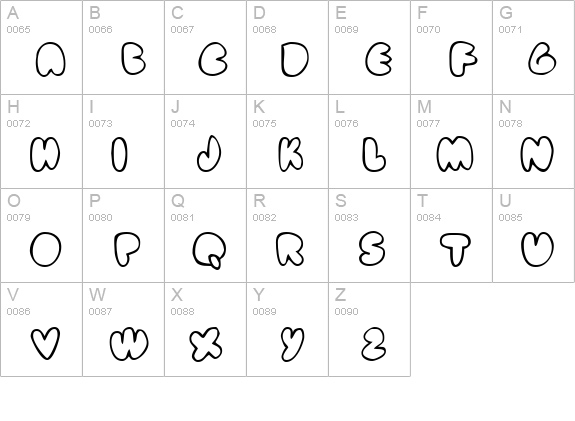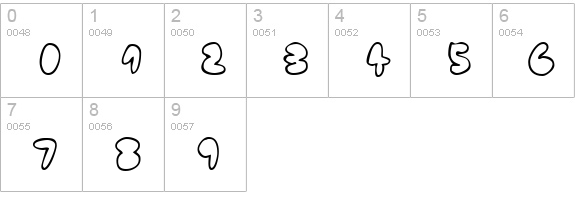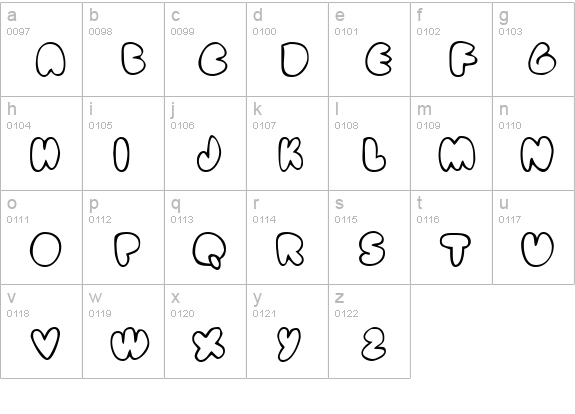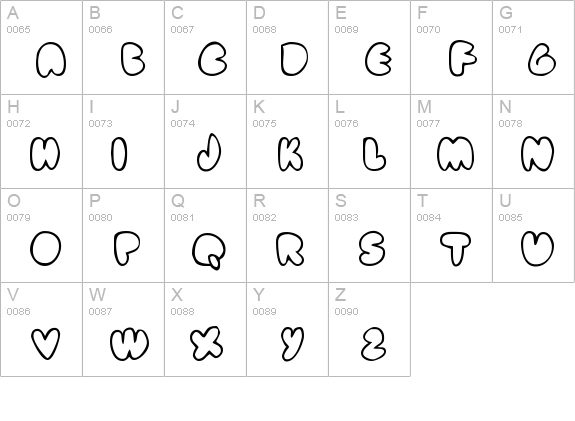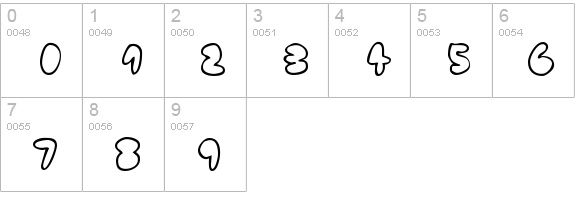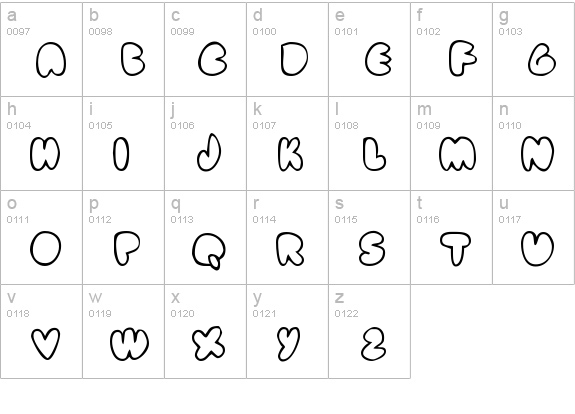
Fat Ass Outline font is a bold and eye-catching typeface that is sure to make a statement in any design project. This unique font features thick outlines that give it a modern and edgy look, perfect for posters, headlines, and branding materials. The fat ass outline font is versatile and can be used in a variety of creative ways to add a touch of personality and flair to your designs. Best of all, this font is available for free download at FontsMarket.com, making it easily accessible for designers and creatives looking to add a bold and impactful touch to their projects. Whether you're working on a poster, flyer, or logo design, the fat ass outline font is sure to make a lasting impression. Download it today and unleash your creativity with this striking typeface.